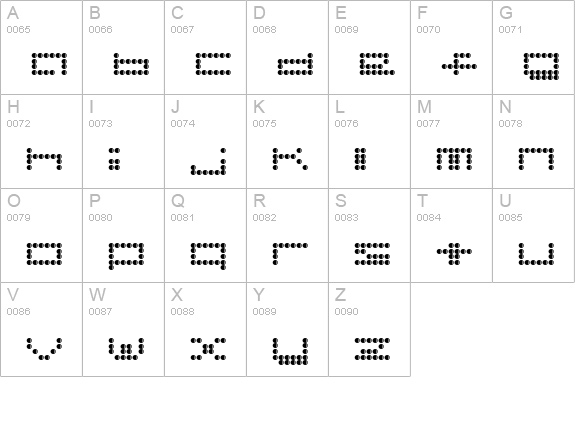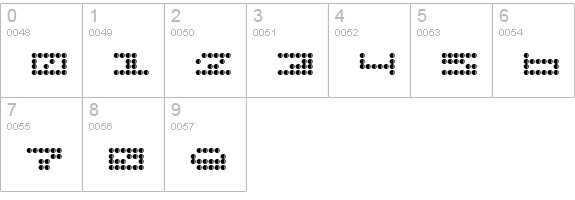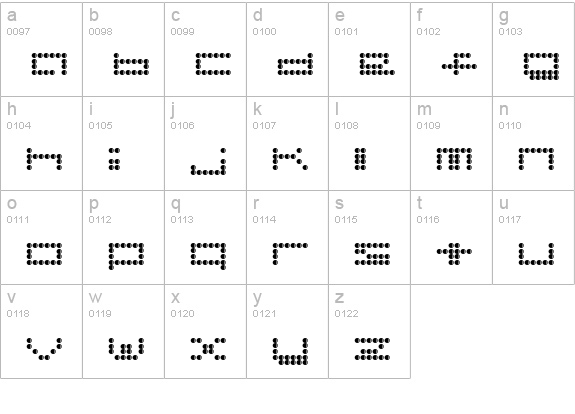
Hydrophonic Font Details
Hydrophonic font is a stunning display typeface that exudes a sense of fluidity and modernity. Its sleek and bold design makes it perfect for a wide range of projects, from branding to editorial design. The unique shapes and curves of Hydrophonic font create a captivating visual experience that will draw attention to any text it is applied to. What makes Hydrophonic font even more appealing is that it is available for free download at FontsMarket.com. This means that you can easily access this premium quality font without having to spend a dime. Whether you are a designer, marketer, or enthusiast looking to elevate your projects, Hydrophonic font is a fantastic choice that won't break the bank. Download Hydrophonic font today and add a touch of sophistication and style to your designs!